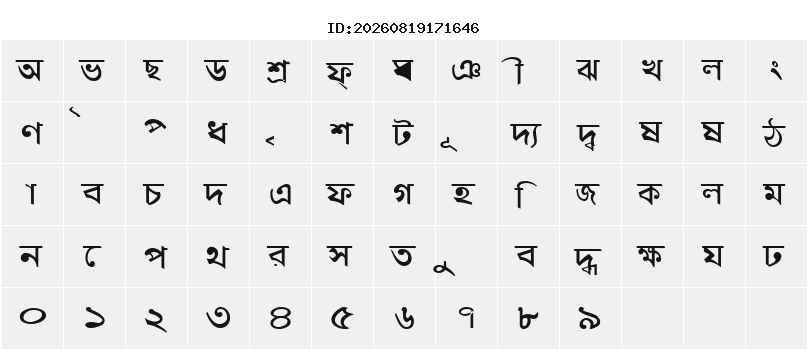
• Font Name: Shymal01
• Font ID: Shus:Shymal01
• Full Font Name: Shymal01
• Version: 1.0 Tue Jan 27 06:55:45 1998
• PostScript Name: Shymal01
• Character Count: 182
• Copyright: Shymal01: Based on Shusha V 1.5
About Shymal01.ttf
Shymal01.ttf is a modern, elegant sans-serif font designed for ultimate readability and visual harmony. Perfect for branding, headlines, web design, and print materials.